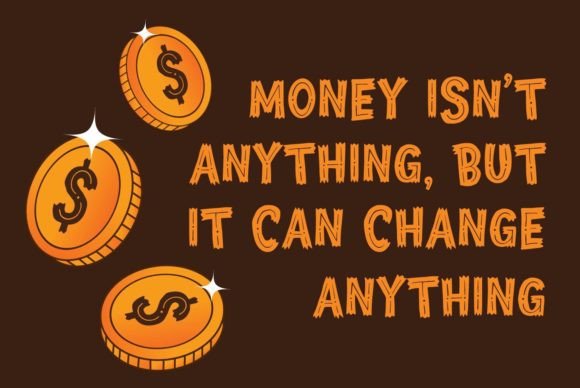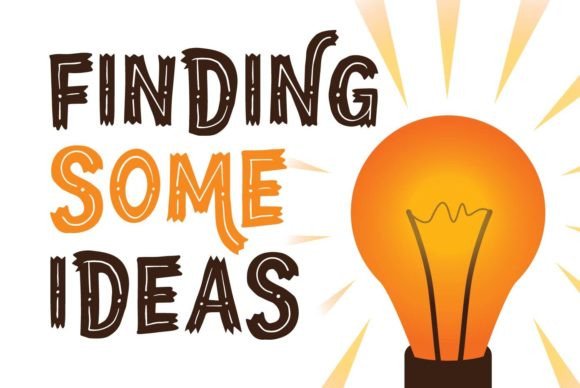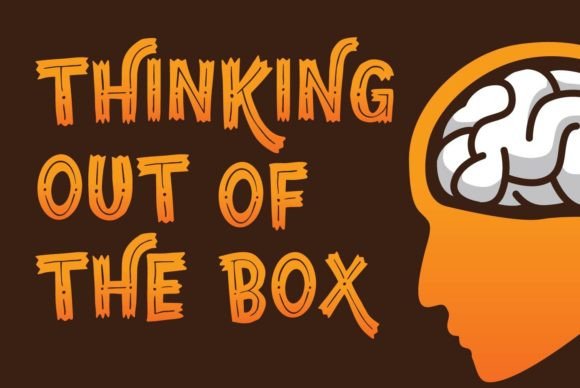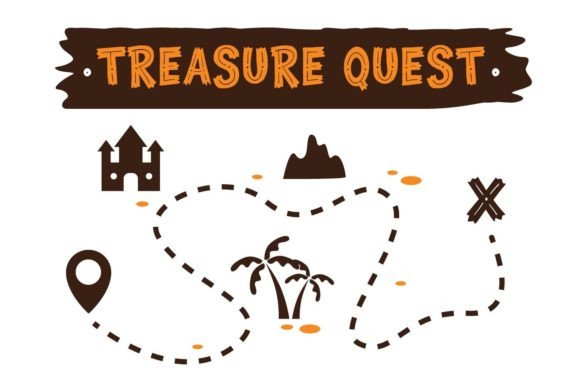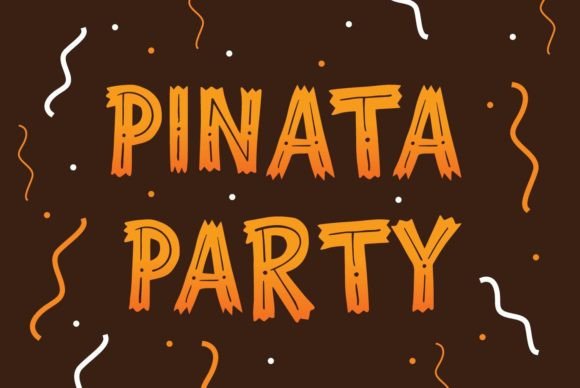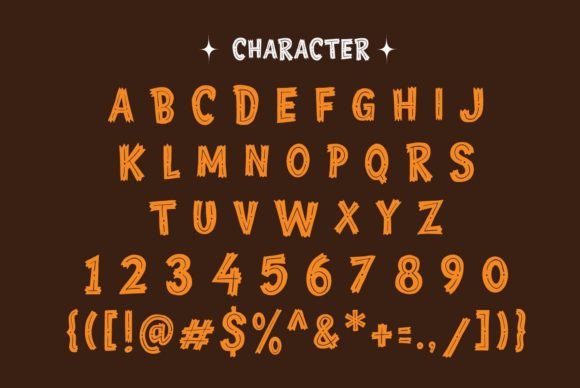
Introduction to Golden Thinker Font
Golden Thinker is a lively and fun display font that can add tons of personality to your text.
Use it on book covers, posters, banners, or anything bold and beautiful .
Key Features of Golden Thinker Font
Why Choose Golden Thinker Font?
Golden Thinker Font offers exceptional quality and versatility, making it a valuable addition to your design toolkit. Whether you’re creating for personal projects or commercial use, Golden Thinker Font delivers professional results.